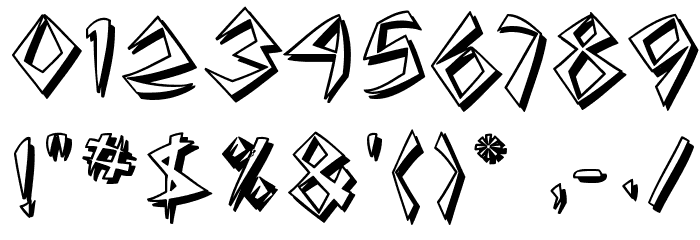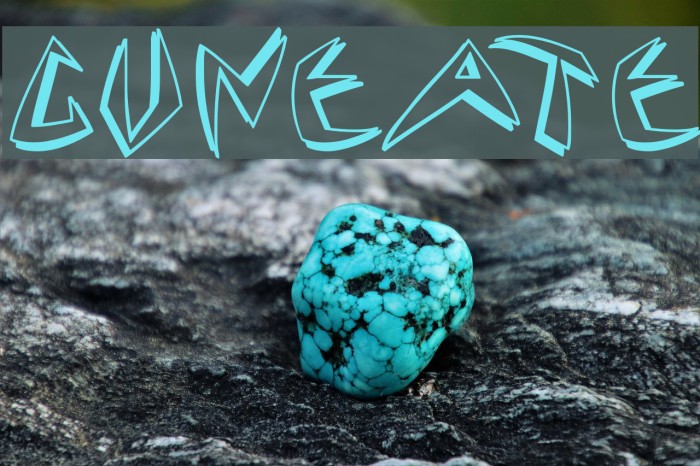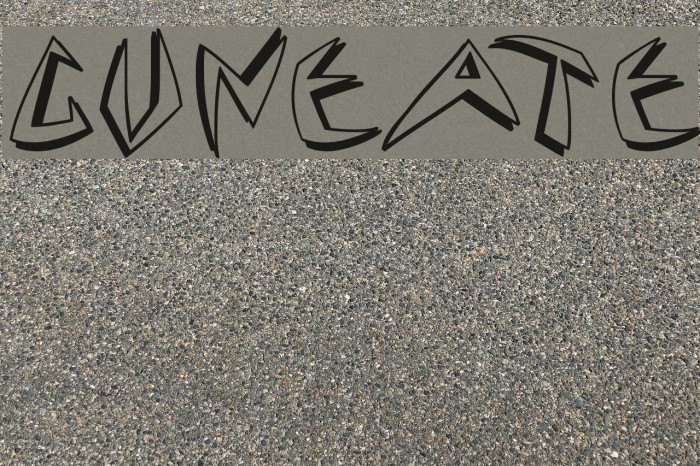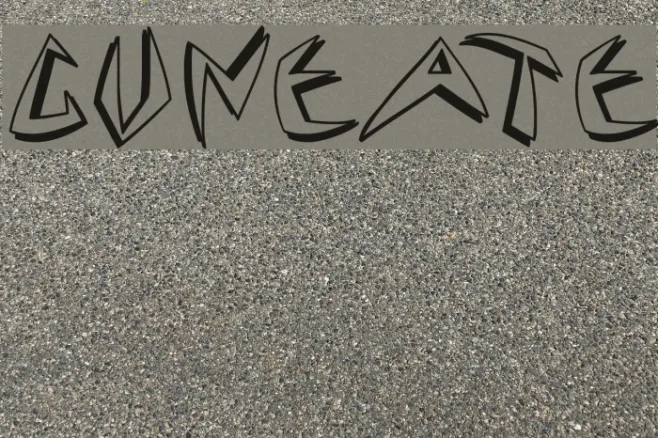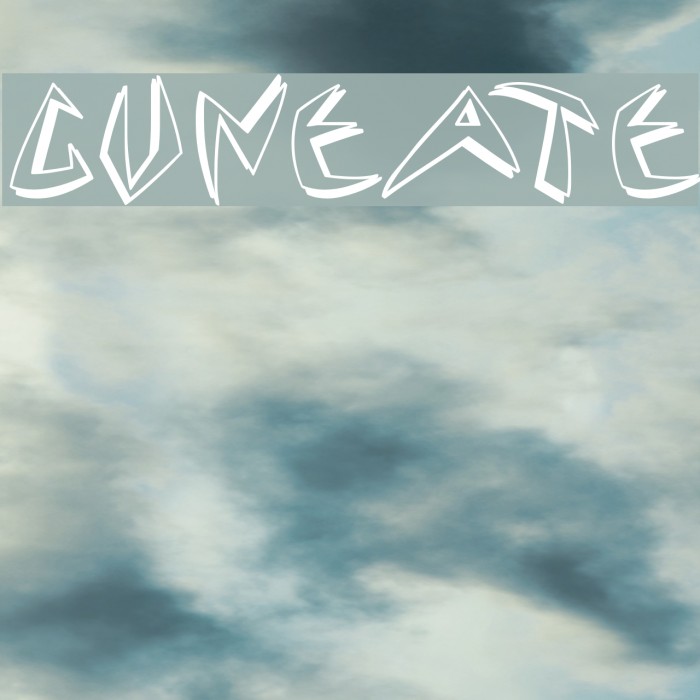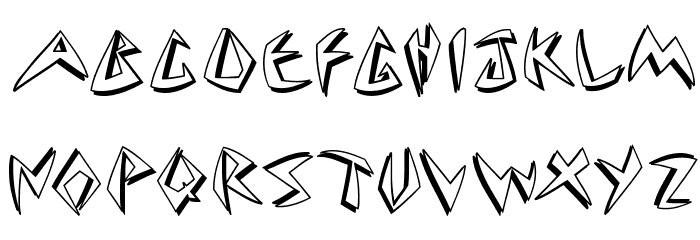
Cuneate Font
Cuneate Description
This font features a bold and dynamic style with sharp, angular edges and a graffiti-like appearance. The characters are highly stylized, with a three-dimensional effect created by thick outlines and contrasting inner lines. The uppercase and lowercase letters maintain a consistent aesthetic, emphasizing a sense of movement and energy. Numbers and special characters follow the same design principles, making the font cohesive and visually striking. The overall look is edgy and modern, suitable for projects that require a strong visual impact.
| Use Case | Logos, Headlines, Posters |
| Proposed Projects | Ideal for street art designs, music album covers, urban-themed posters, and edgy branding projects. |